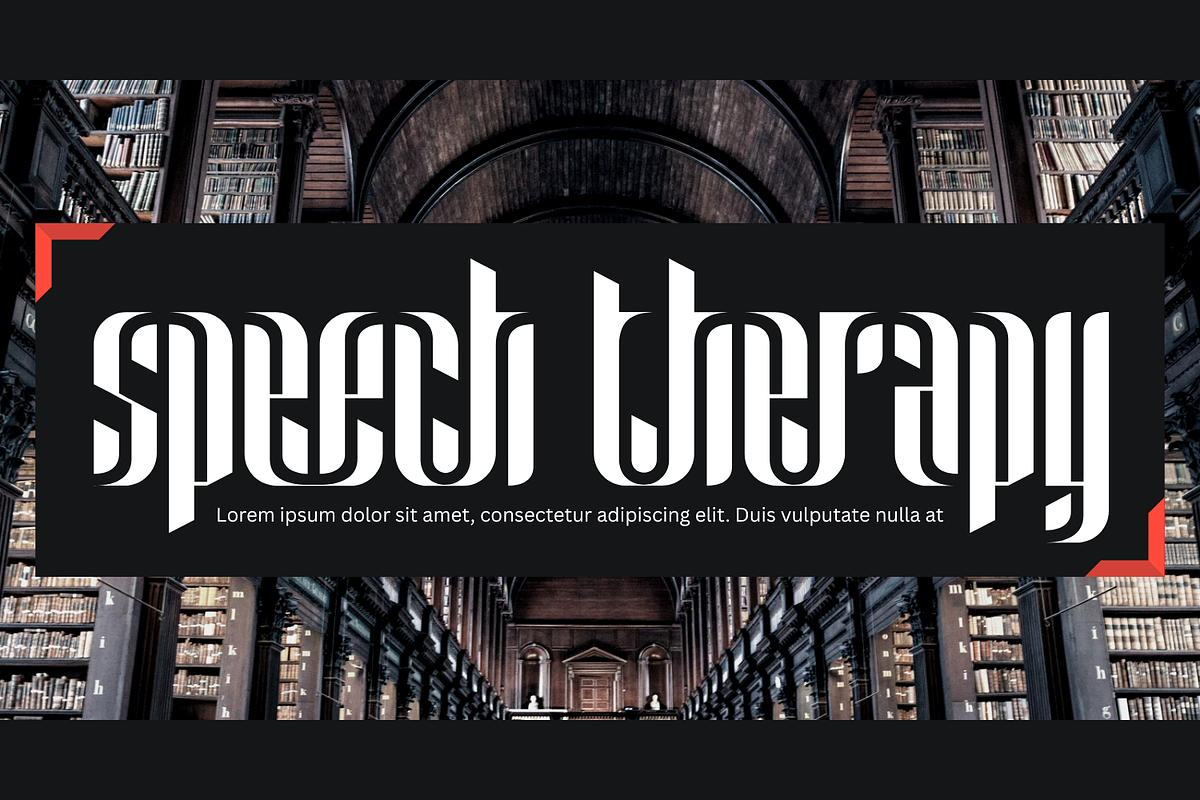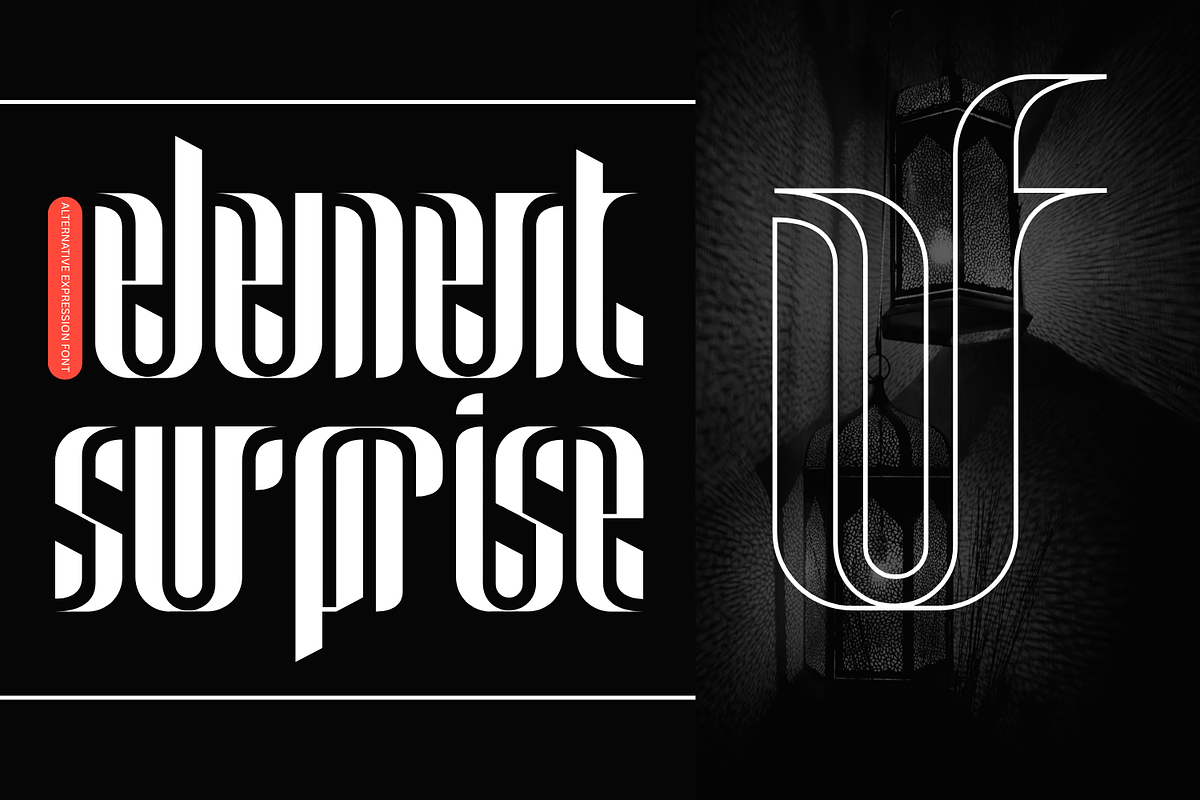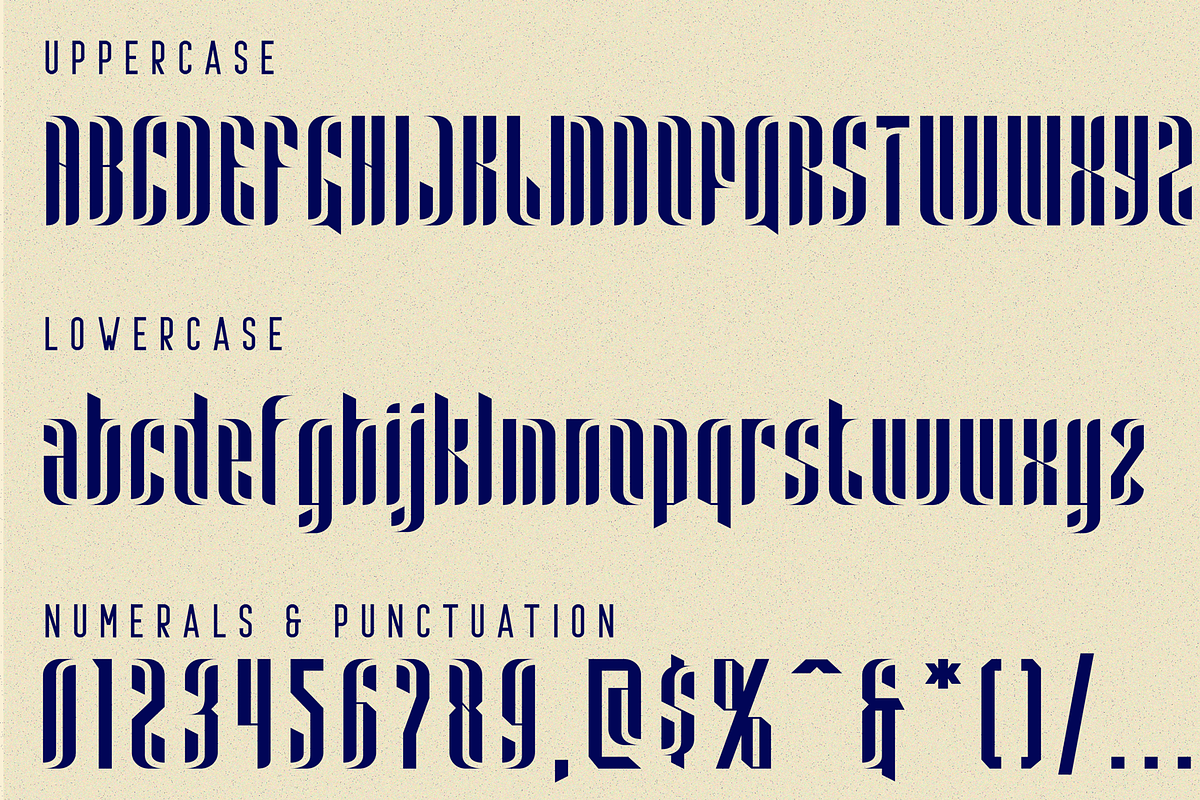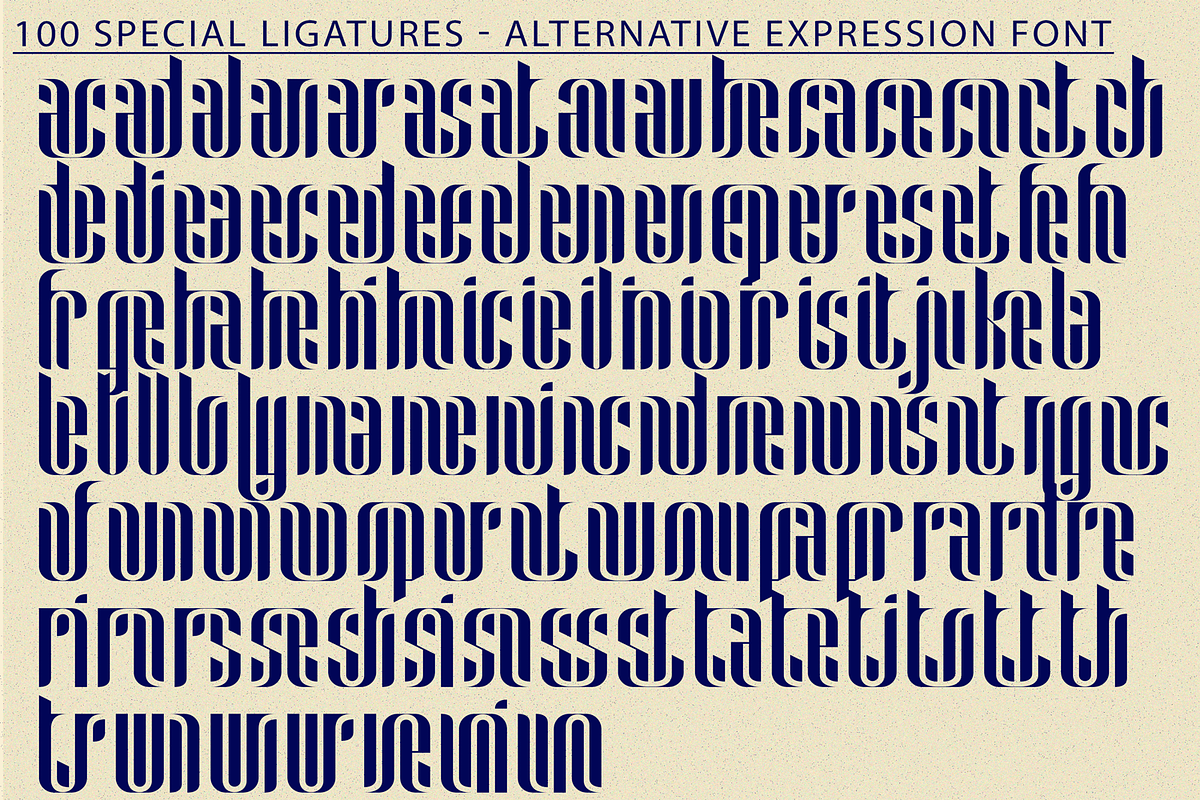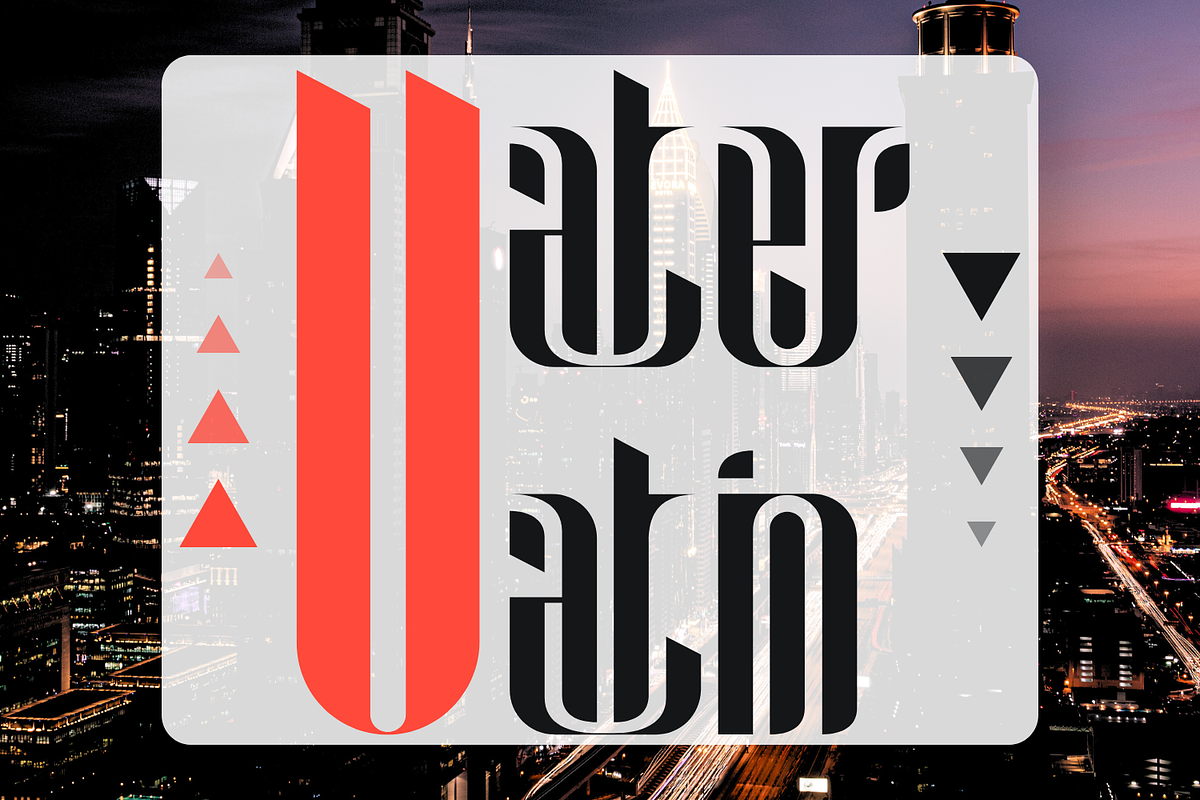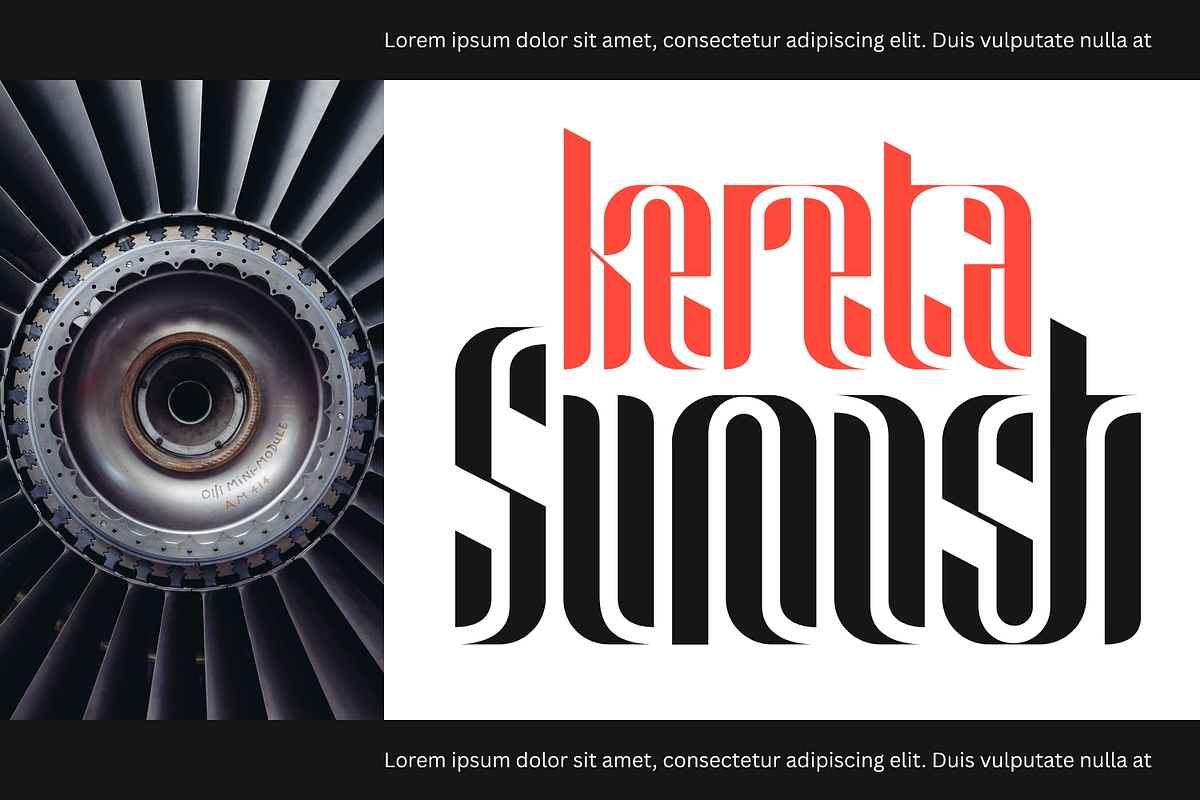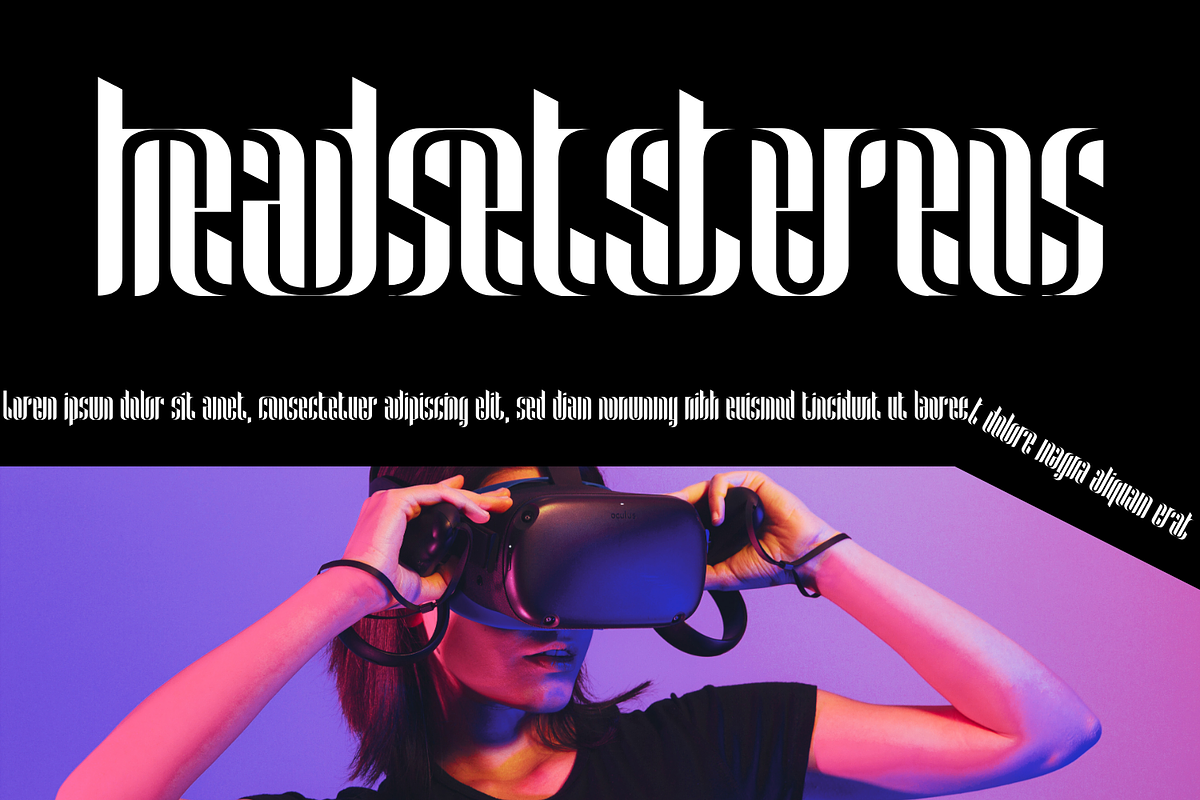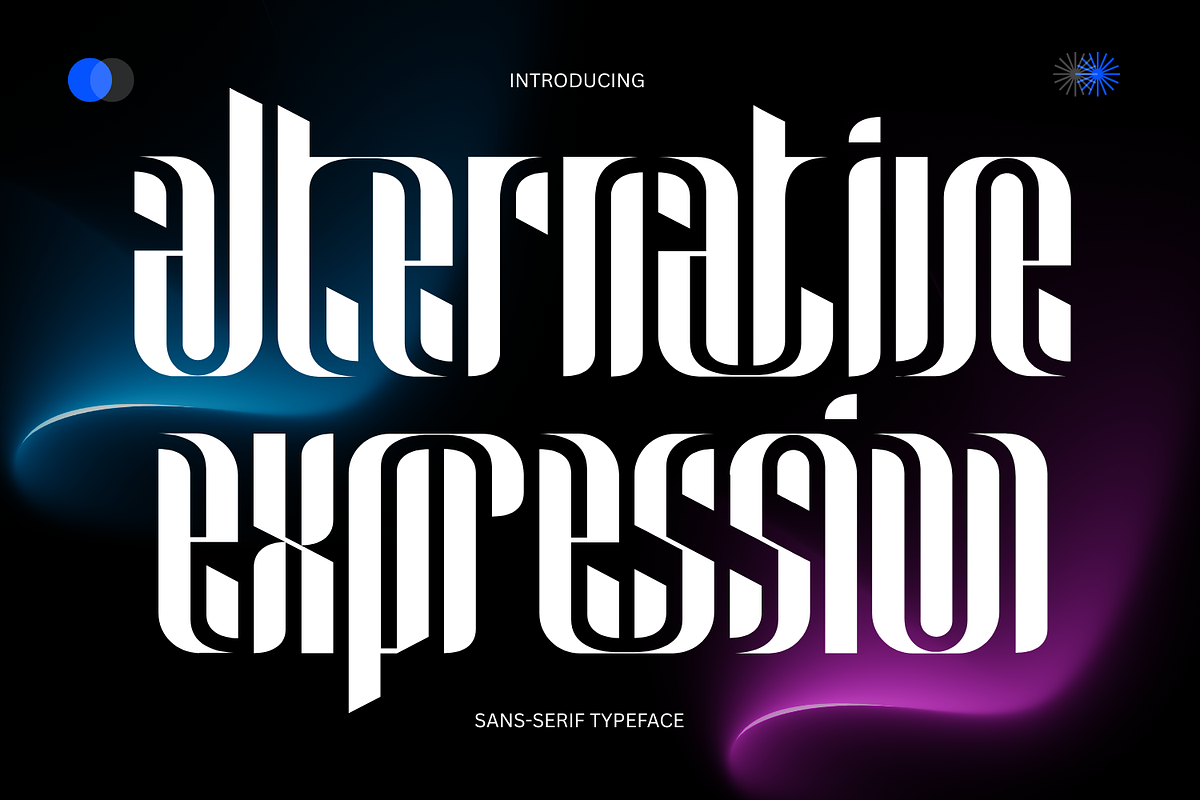
Alternative Expression - Futuristic
Alternative Expression Font – Futuristic Modular Sans-Serif Typeface, a bold and innovative display sans-serif typeface that pushes the boundaries of typographic design. With its ultra-high contrast, modular construction, and experimental forms, this font is crafted for creatives who aren’t afraid to stand out.
Designed with a unique rhythm and visual drama, Alternative Expression is perfect for editorial headlines, branding, posters, album covers, and fashion-forward visuals.
- Full Uppercase and Lowercase alphabet
- Around 100 unique Special Ligatures
- Complete set of Numerals & Punctuation
- Accented characters for multilingual support
Whether you're working on a bold visual identity or an expressive graphic layout, Alternative Expression delivers personality and futuristic flair with every letterform.
About 100 ligatures combined with Stylistic Alternates Font:
ac ad al an ar as at au av be ca ce ch co ct de di ea ec ed ee el em en ep er es et fe fo fr ge ha he hi ho ie ic il in io ir is it ju ke la le li ll lo ly ma me mi nc nd ne ng no nt ns oc of om on oo op or ot ou ow pa pr ra rd re ri ro rs rt se sh si so ss st ta te th ti to tr tt um un ur ve wi wo